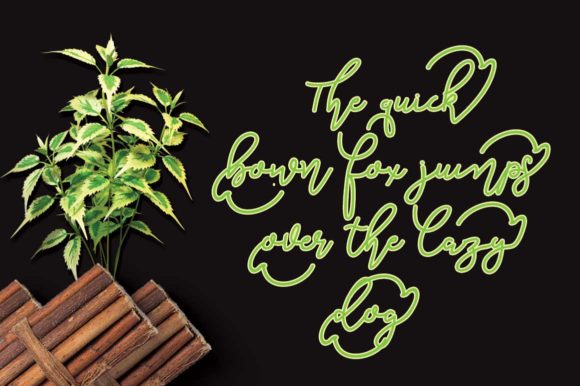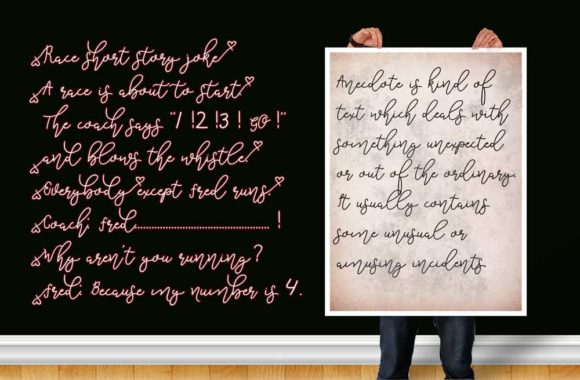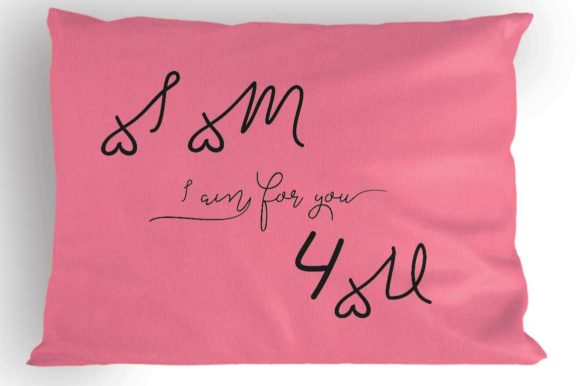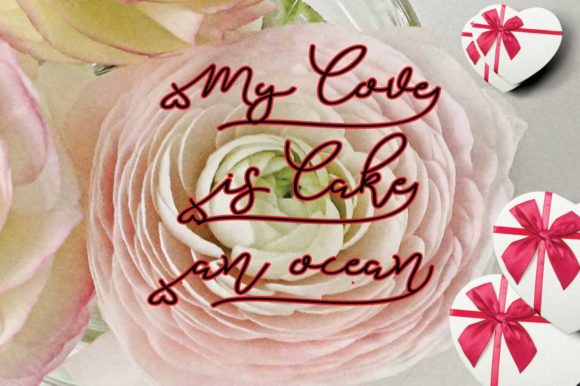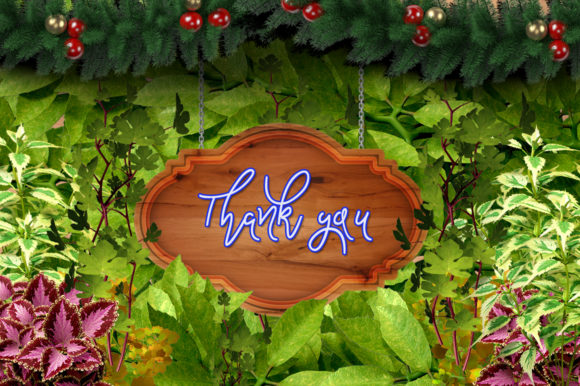
Discover the Unique Charm of Geoffrey Font: Elevate Your Design Projects with a Personal Touch
In the world of typography, fonts play a crucial role in bringing a design project to life. Among the numerous fonts available, one that stands out for its distinct comic feel and handwritten authenticity is the Geoffrey Font. This versatile font perfectly blends together a playful, comic essence with the warmth of handwriting, making it an ideal choice for designers and crafters looking to add a personal touch to their creations.
The Distinctive Characteristics of Geoffrey Font
Geoffrey Font is not just another addition to the vast sea of typefaces. It boasts a unique personality that can instantly elevate the visual appeal of any design project. Here are some of its key characteristics:
- Comic Feel: The font carries a distinct comic feel, making it perfect for projects that require a touch of fun and playfulness. Whether you’re working on a children’s book, a comic strip, or an advertisement aimed at a younger audience, Geoffrey Font is sure to capture their attention.
- Handwritten Authenticity: What sets Geoffrey apart is its handwritten authenticity. The font mimics the natural flow and imperfections of handwriting, giving it a warm, personal feel. This makes it an excellent choice for projects that aim to connect with the audience on a more personal level.
- Versatility: One of the significant advantages of Geoffrey Font is its versatility. It can be used in a wide range of design projects, from digital content like websites and social media graphics to print materials such as brochures, posters, and greeting cards.
How Geoffrey Font Can Transform Your Design Projects
The addition of Geoffrey Font to your typography arsenal can significantly impact your design projects. Here’s how:
- Eye-Catching Designs: The unique blend of comic and handwritten elements ensures that your designs stand out in a crowded digital or print space. Geoffrey Font has the power to turn any ordinary design into an eye-catcher.
- Enhanced Engagement: By adding a personal touch to your designs, you can create a stronger emotional connection with your audience. The authenticity and playfulness of Geoffrey Font can make your content more relatable and engaging.
- Creative Freedom: The versatility of Geoffrey Font gives you the creative freedom to experiment with different design ideas. Whether you’re aiming for a minimalist look or a more elaborate design, this font adapts beautifully to various styles and themes.
Tips for Using Geoffrey Font Effectively
To make the most out of Geoffrey Font, consider the following tips:
- Pair it with Neutral Fonts: For a balanced look, pair Geoffrey Font with neutral, sans-serif fonts. This contrast will highlight the unique characteristics of Geoffrey and ensure readability.
- Experiment with Colors: The playful nature of Geoffrey Font allows for experimentation with vibrant colors. Use this opportunity to add an extra layer of personality to your designs.
- Consider the Context: While Geoffrey Font is versatile, it’s essential to consider the context of your design. Ensure that the font aligns with the message and tone of your project.
Geoffrey Font is more than just a typeface; it’s a design element that can transform your projects with its unique blend of comic feel and handwritten authenticity. Whether you’re a designer looking to add a playful touch to your work or a crafter seeking to infuse personality into your creations, Geoffrey Font is an excellent choice. With its versatility and eye-catching appeal, it’s poised to become a favorite in your typography collection. So, why not give Geoffrey Font a try and see how it can elevate your design projects?